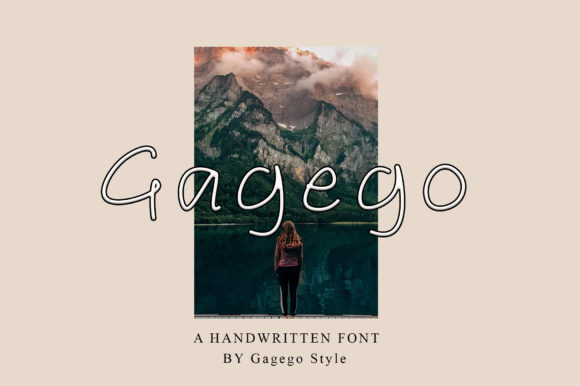
Indulge in the enchanting realm of Gagego Font, where creativity knows no bounds. This elegant script font, meticulously crafted by Gagegostyle, invites you to unleash your imagination with its captivating cursive strokes.
Step into a world where your words dance with grace and passion. Gagego Font transforms your designs into exquisite masterpieces, beckoning attention with its alluring curves and sweeping lines. It's the perfect canvas to express your individuality, leaving an unforgettable mark on logos, branding, and heartfelt quotes.
Every letter in Gagego Font is a work of art, infused with a unique touch that breathes life into your words. Experience the joy of seeing your creations come alive, as this font weaves its magic to enhance your designs with a timeless charm.
Unleash your inner artist and let Gagego Font ignite your inspiration. It's the key to unlocking captivating visuals that resonate with your audience, leaving a lasting impression that speaks volumes. Embrace the allure of handwritten beauty and elevate your designs to new heights with Gagego Font — the epitome of timeless elegance and creative flair.